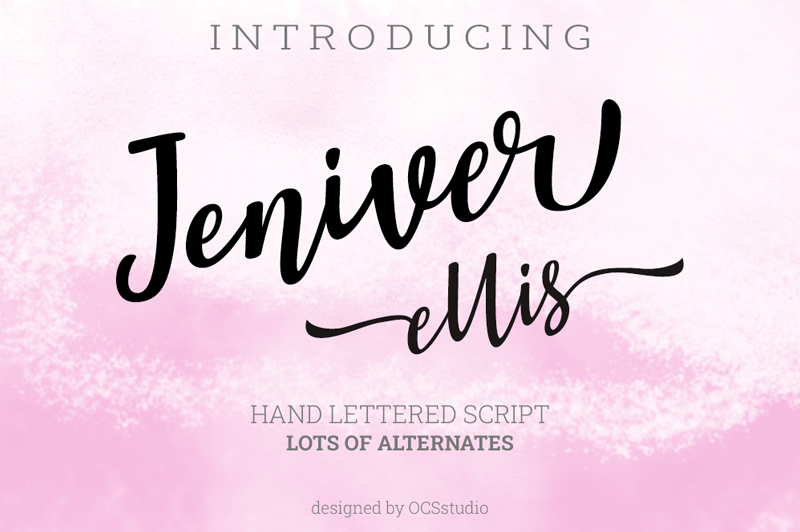
Preview and download Jennifer Ellis Font. Created by Oki Candra Setiawan in Script Various styles with Free for personal use license.
Introducing my new font, Langrish Font Duo made with a pen brush refined to look neat. like dance letters, smooth, clean and simple. Langrish Font Duo are perfect for weddings, events, invitations, escort cards, table numbers, Quotes, displays, logos, blog sliders, special addresses, stamps, packaging, greeting cards, etc. Link to purchase full version and commercial license : http://bit.ly/jnvrelshfb give me a cup of coffee : https://paypal.me/ocans ** Thank you for downloading my font, hopefully it's useful ** |